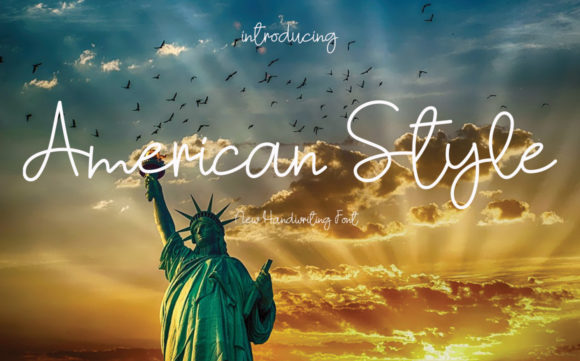
The Charm of American Style Font: A Designer’s Delight
I’ll never forget the time I was working on a wedding invitation project, and my client asked for a font that was “sweet, romantic, and playful.” I scoured the internet, tried out dozens of fonts, but nothing seemed to fit the bill. That was until I stumbled upon American Style Font. This beautiful, cursive handwritten font has been a game-changer for my designs, and I’m excited to share its charm with you! ✨
So, what makes American Style Font so special? Let’s dive into the good stuff and a few quirks I’ve discovered.
- 💕 Sweet and romantic vibe: perfect for wedding invitations, baby showers, and other celebratory designs.
- ✅ Elegant yet playful: American Style Font strikes the perfect balance between sophistication and whimsy.
- 🎨 Versatile: use it for a variety of design projects, from branding and packaging to social media graphics and more.
- 👀 Beautiful swashes and ligatures: add a touch of elegance to your designs with the font’s built-in swashes and ligatures.
While American Style Font is an amazing addition to any design project, there are a few things to keep in mind:
- 🤔 Limited character set: as with any font, some characters or special characters might not be included.
- ⚠️ May not be suitable for body text: American Style Font is best used for headlines, titles, or short paragraphs due to its cursive nature.
The Story Behind American Style Font
American Style Font was created with the intention of capturing the essence of classic American script fonts. The designer aimed to create a font that was both elegant and approachable, perfect for a variety of design projects. While the true origins of the font might be unclear, its charm and character have won over the hearts of designers worldwide.
Q: What type of projects is American Style Font best suited for?
A: American Style Font is perfect for designs that require a sweet, romantic, and playful touch, such as wedding invitations, baby showers, and other celebratory designs.
Q: Does American Style Font support OpenType features?
A: Yes, American Style Font supports OpenType features like swashes, ligatures, and stylistic alternates, making it a versatile choice for designers.